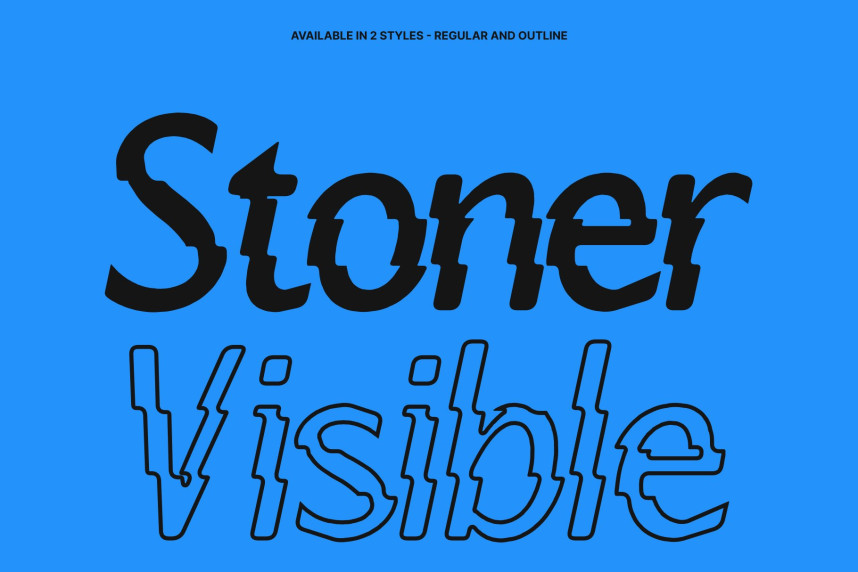
CS Alondra Rippled Font
CS Alondra Rippled Font – Modern Professional Font with Fluid Elegance
Clean and Elegant Sans Serif Design
This is a modern sans serif font designed to communicate clarity, elegance, and professional sophistication. Its clean construction and minimalist approach create a refined visual tone that feels polished and highly readable. The simple yet confident letterforms ensure a sleek appearance that enhances content without distraction.